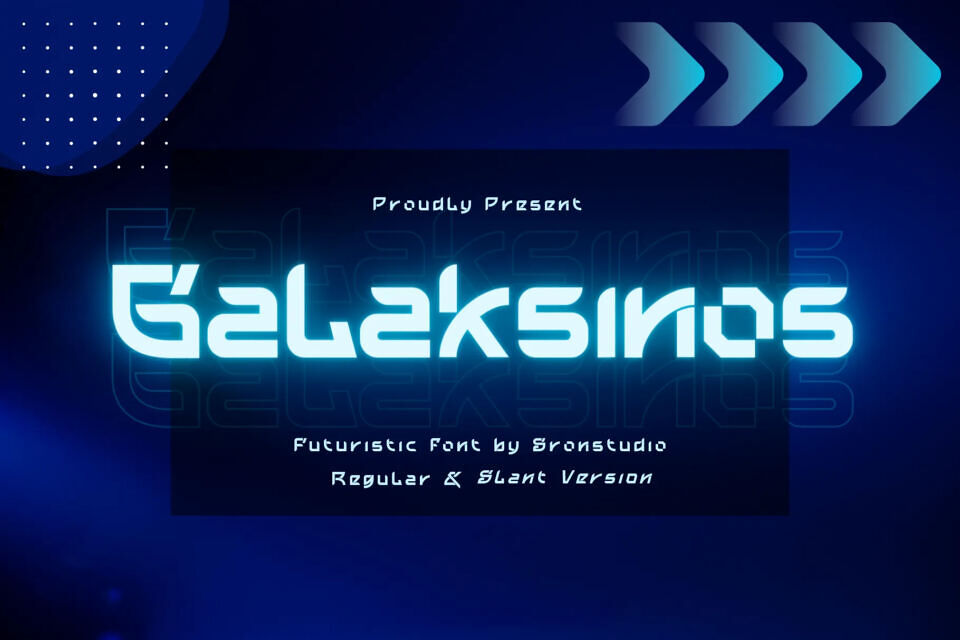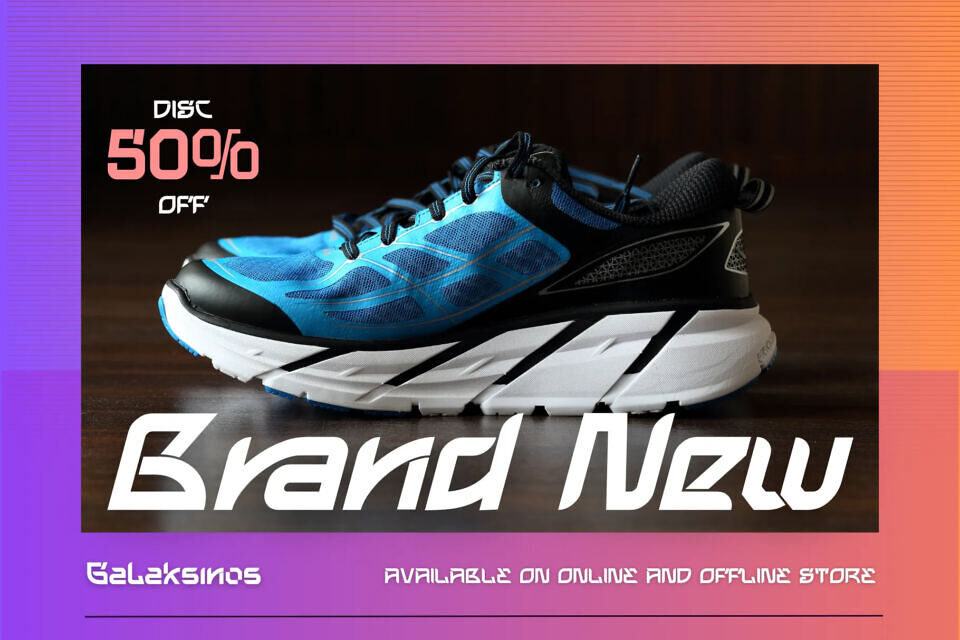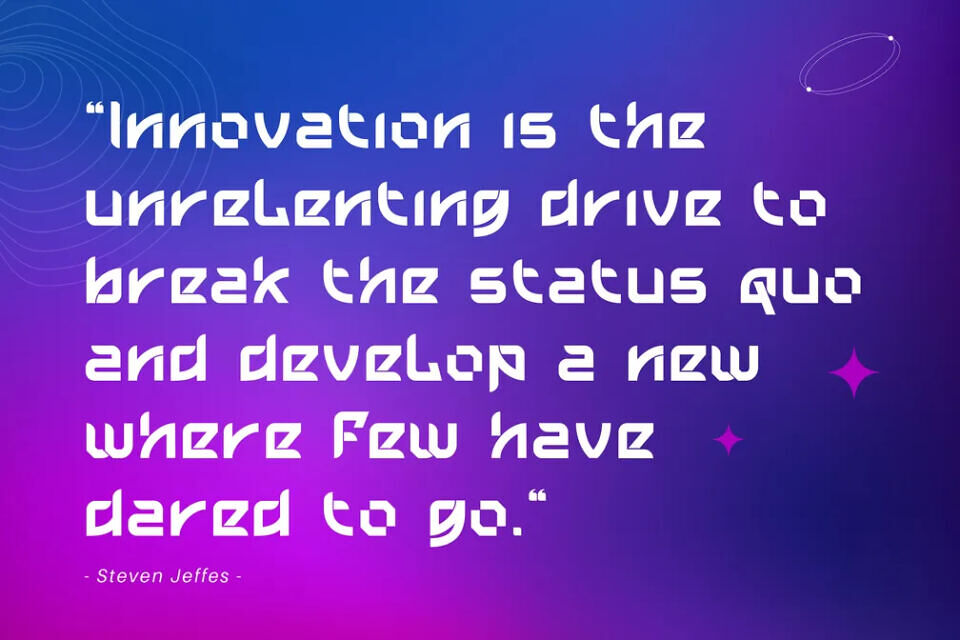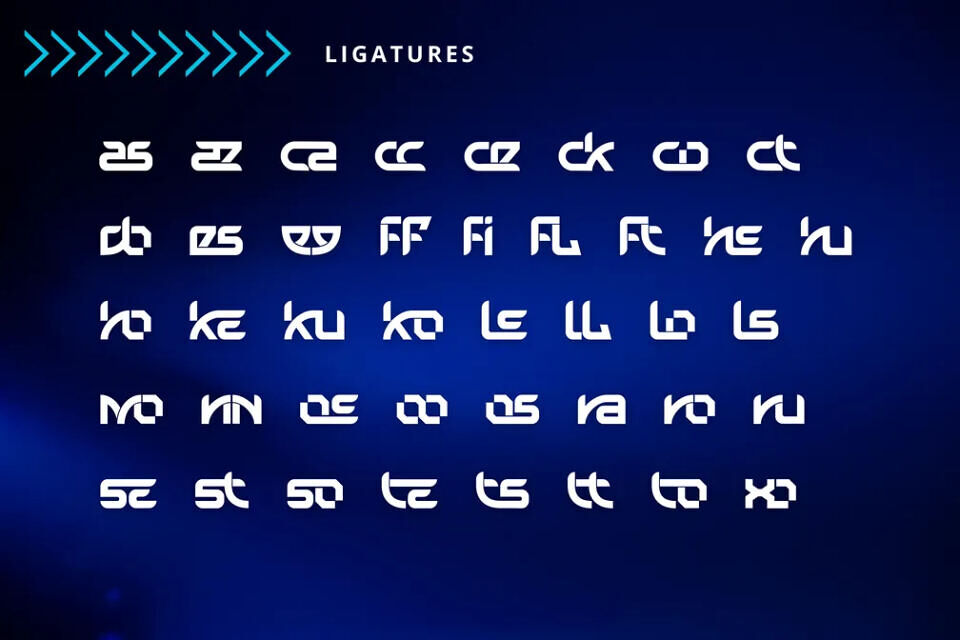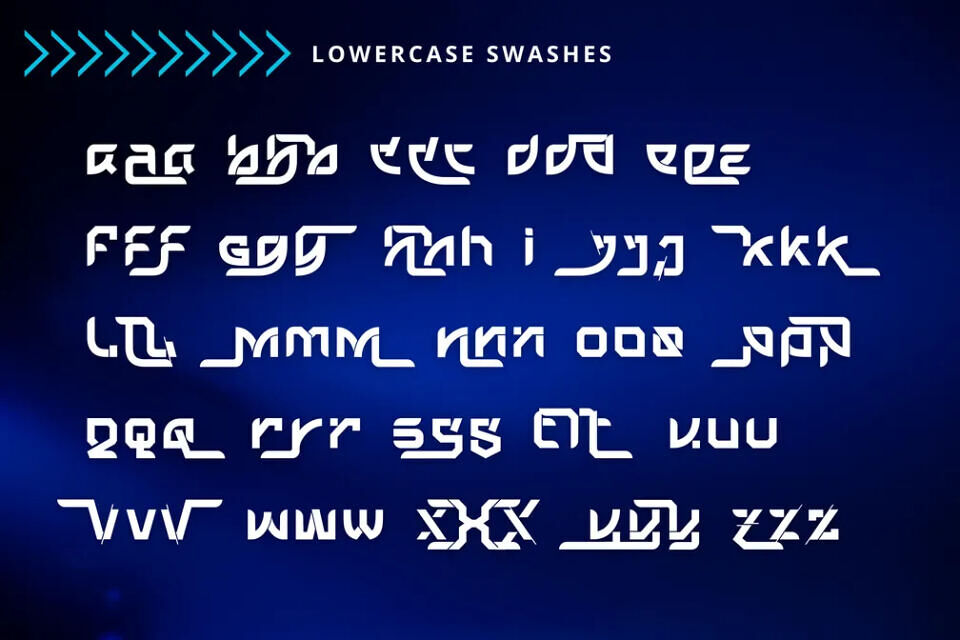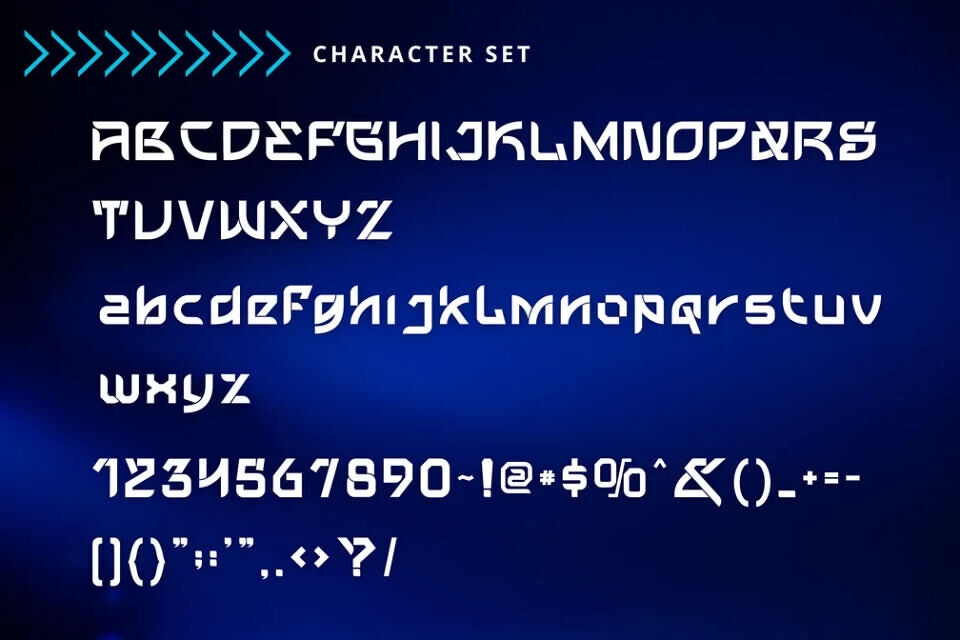
Galaksinos Font
Galaksinos is a cutting-edge font that exudes a blend of athleticism and futuristic flair, making it ideal for a wide range of design purposes. Its versatile style is perfect for elevating branding.
Whether you’re crafting social media posts, advertisements, product packaging, labels, or photography, this font is sure to make your work stand out. Additionally, Galaksinos can add a touch of sophistication to any special event or watermark, making it an excellent choice for designers looking to create sleek, modern designs.
Designed by: Sronstudio